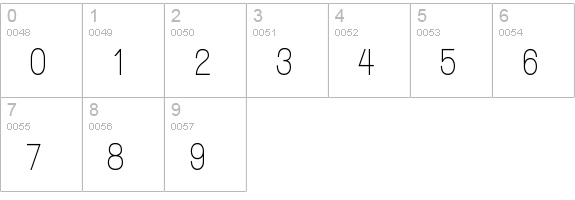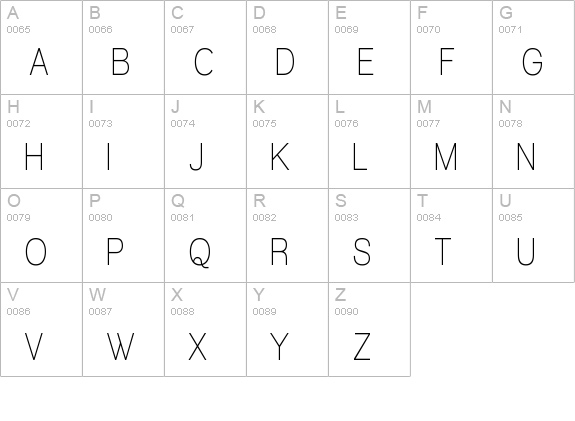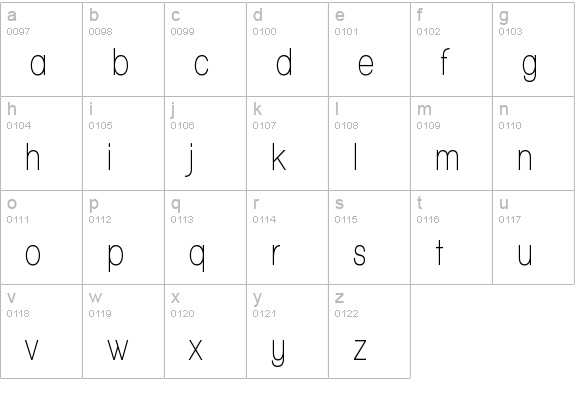
Walkway Condensed SemiBold is a sub-bold, structured, condensed-width variant in the Walkway typeface family \xE2\x80\x94 well suited to sub-headlines and emphasised passages.
Walkway Condensed SemiBold is a versatile and modern typeface that exudes confidence and sophistication. Its condensed design adds a sleek and elegant touch to any project, making it the perfect choice for headlines, logos, posters, and branding materials. With its semi-bold weight, Walkway Condensed SemiBold strikes the perfect balance between boldness and subtlety, giving your text a strong presence without overwhelming the overall design. The clean and sharp lines of this font make it highly readable, even at smaller sizes. This font is not only visually appealing but also highly functional. Its condensed form allows you to fit more text within a limited space without sacrificing legibility. Whether you're designing a website, creating a magazine layout, or producing marketing materials, Walkway Condensed SemiBold ensures that your content stands out and grabs the attention of your audience. And the best part? Walkway Condensed SemiBold is available for free download at FontsMarket.com. This means that you can enjoy the benefits of this exceptional font without spending a dime. Simply head over to FontsMarket.com, find the Walkway Condensed SemiBold font, and start using it in your projects right away. So why wait? Enhance your designs with the stylish and impactful Walkway Condensed SemiBold font today. Download it for free at FontsMarket.com and take your typography to new heights.